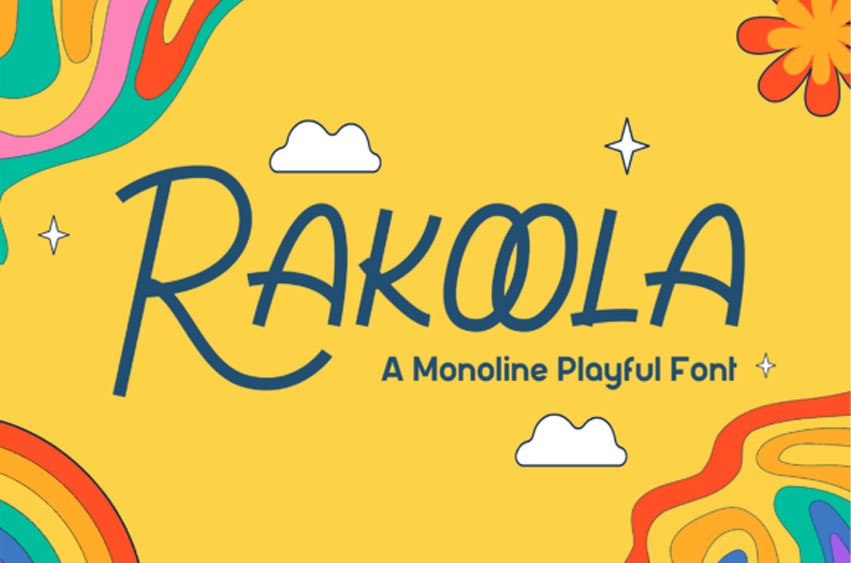
Rakoola Font
Rakoola Font is a playful monoline handwritten font designed to bring warmth, creativity, and personality to any project. Featuring smooth single-stroke letterforms with a casual handcrafted feel, this font combines simplicity with expressive charm.
Its clean monoline structure ensures excellent readability while maintaining a fun and friendly appearance. Perfect for children’s products, educational materials, greeting cards, product packaging, social media graphics, branding projects, invitations, quotes, and posters, Rakoola adds a cheerful and approachable touch to every design.